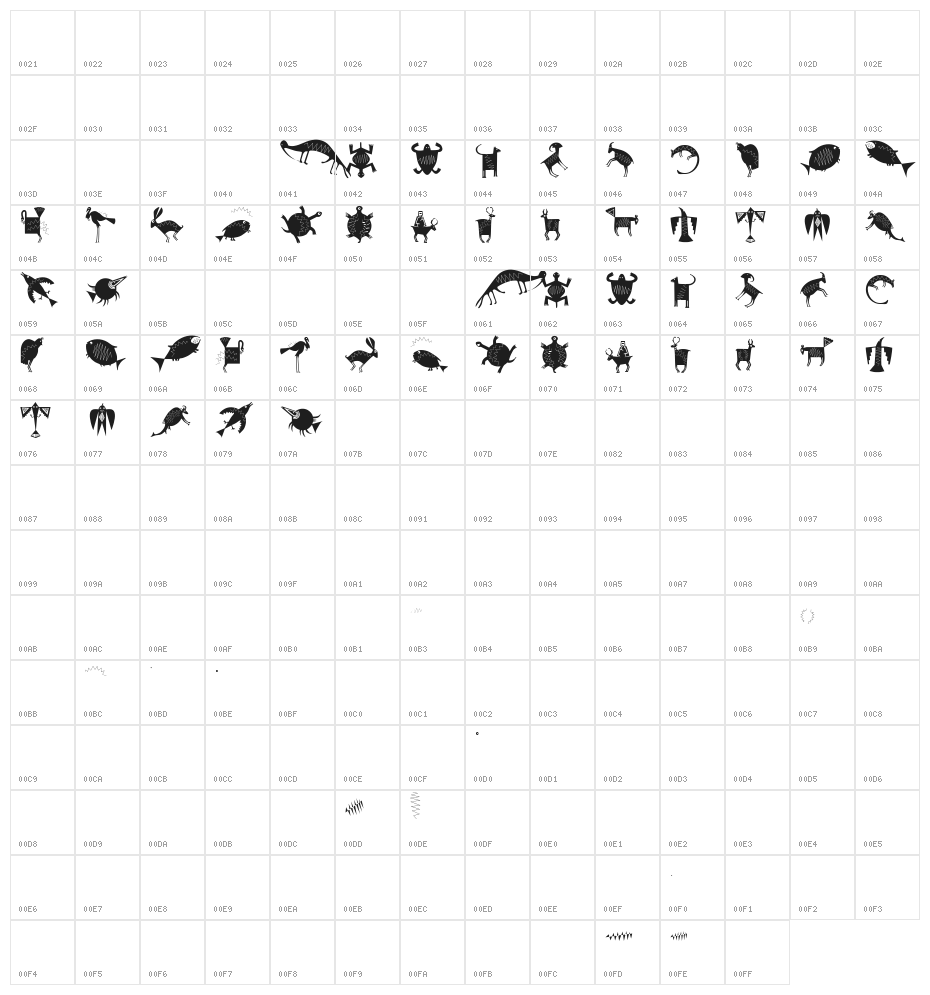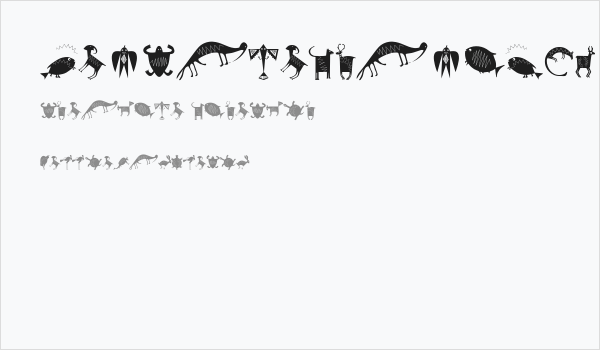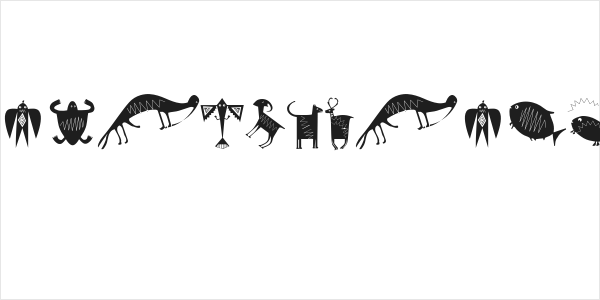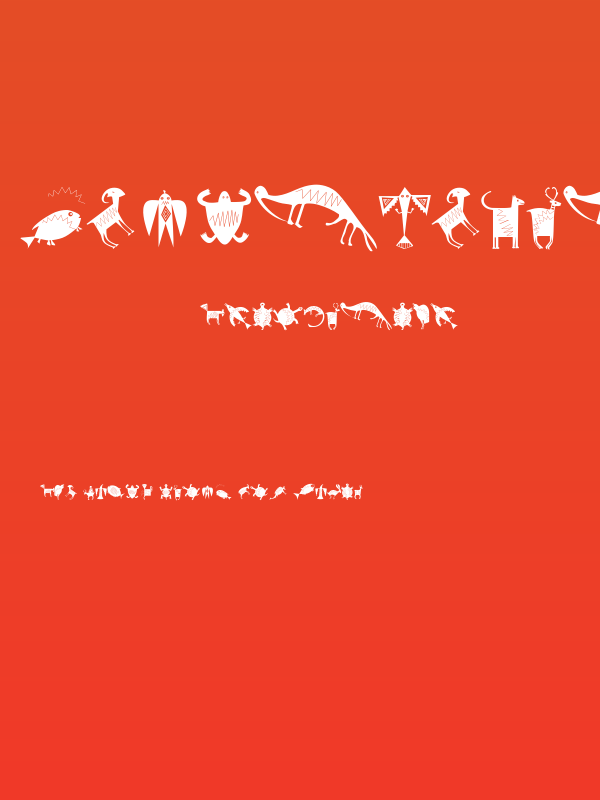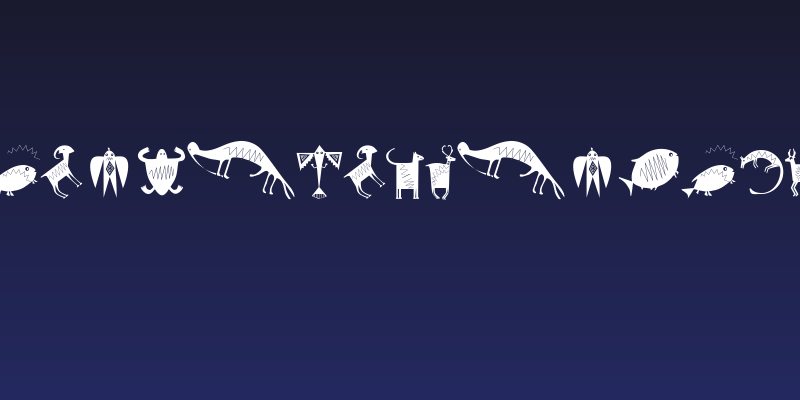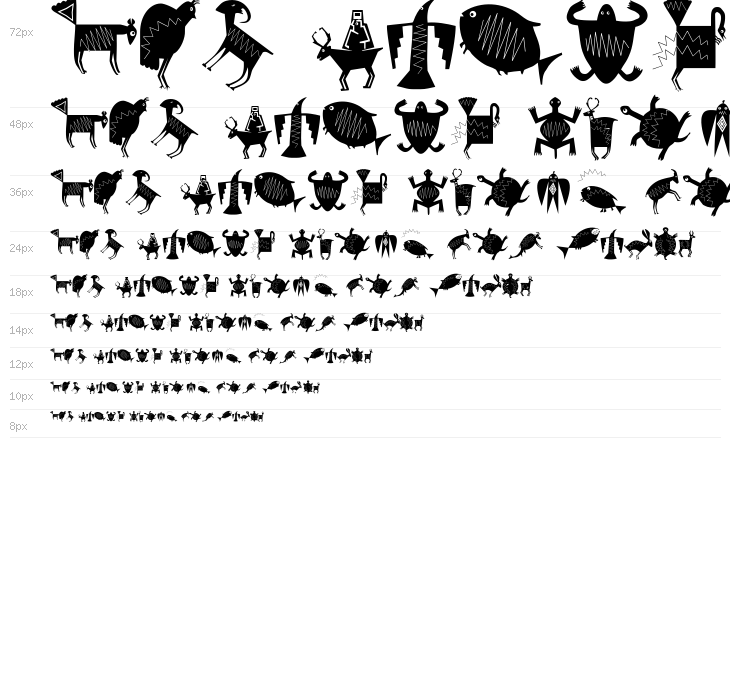
NewCaveDrawings Font
NewCaveDrawings Description
This unique and artistic font is inspired by ancient cave drawings, featuring characters that resemble animals and mythical creatures. Each letter is intricately designed with a combination of bold lines and detailed patterns, creating a sense of movement and storytelling. The font captures a primitive yet imaginative style, making it visually striking and memorable. Its decorative nature is perfect for projects that require a touch of creativity and historical flair. The characters are distinct and easily recognizable, yet they maintain a cohesive theme throughout the set.
| Use Case | Logos, Posters, Artistic Branding |
| Proposed Projects | Ideal for creative projects such as children's books, fantasy-themed designs, posters, and artistic branding. |